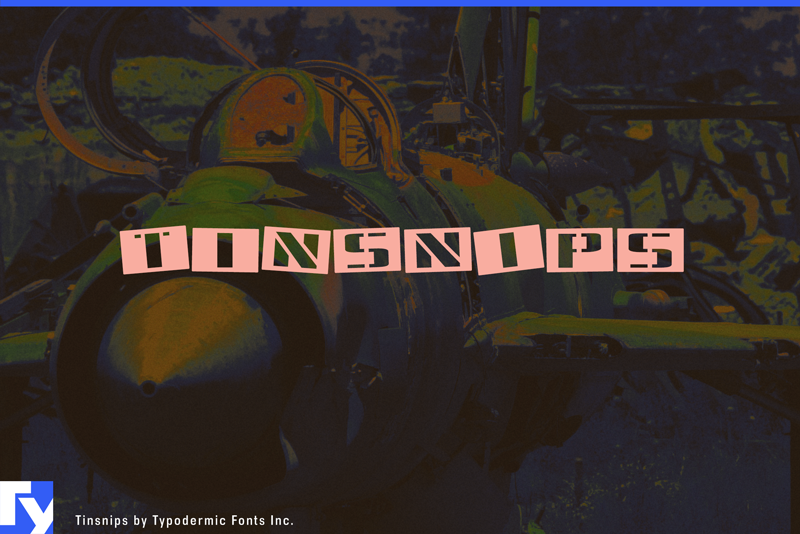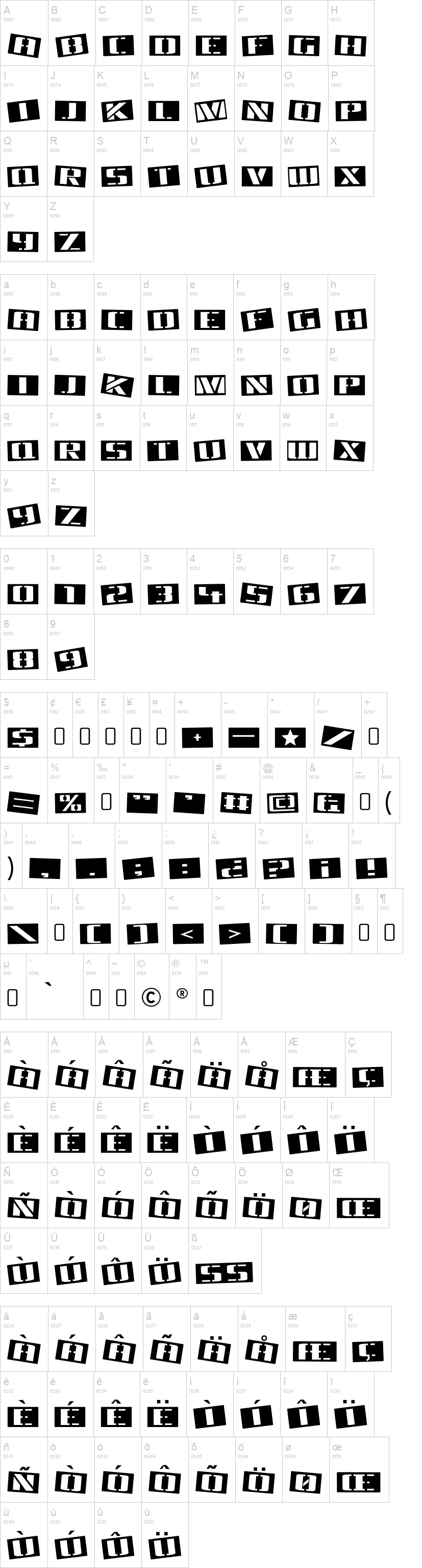
Note of the authorTinsnips is a tough display typeface that looks like a set of metal stencil cards. Its distinctive, industrial aesthetic will provide your message a gritty conviction. To avoid too many consecutive characters with the same slantalternate uppercase and lowercase. Some Latin-based European writing systems are supported, including the following languages. Afaan Oromo, Afar, Afrikaans, Albanian, Alsatian, Aymara, Basque, Bemba, Bikol, Breton, Cape Verdean, Creole, Catalan, Cebuano, Chamorro, Chavacano, Danish, Dawan, Dholuo, Dutch, English, Estonian, Faroese, Fijian, Filipino, Finnish, French, Frisian, Friulian, Galician, Genoese, German, Guadeloupean Creole, Haitian Creole, Hiligaynon, Icelandic, Ilocano, Indonesian, Irish, Italian, Jamaican, Kaqchikel, Kikongo, Kinyarwanda, Kirundi, Lombard, Low Saxon, Luxembourgish, Makhuwa, Malay, Ndebele, Neapolitan, Norwegian, Novial, Occitan, Papiamento, Piedmontese, Portuguese, Quechua, Rarotongan, Romansh, Sango, Saramaccan, Sardinian, Scottish Gaelic, Shona, Sicilian, Silesian, Slovak, Slovenian, Somali, Sotho, Spanish, Swahili, Swazi, Swedish, Tagalog, Tetum, Tshiluba, Tsonga, Tswana, Tumbuka, Uzbek (Latin), Venetian, Võro, Walloon, Waray-Waray, Wayuu, Xhosa, Yapese, Zapotec Zulu and Zuni.